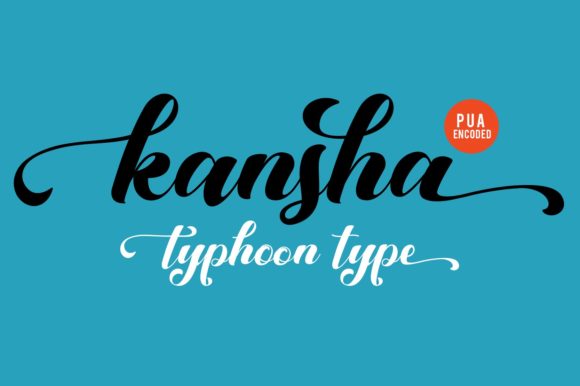
Kansha Font
About Kansha Font
The Kansha is a bold yet elegant typeface. it has beautiful beginning and end swashes which will give your design a striking, yet classy look.